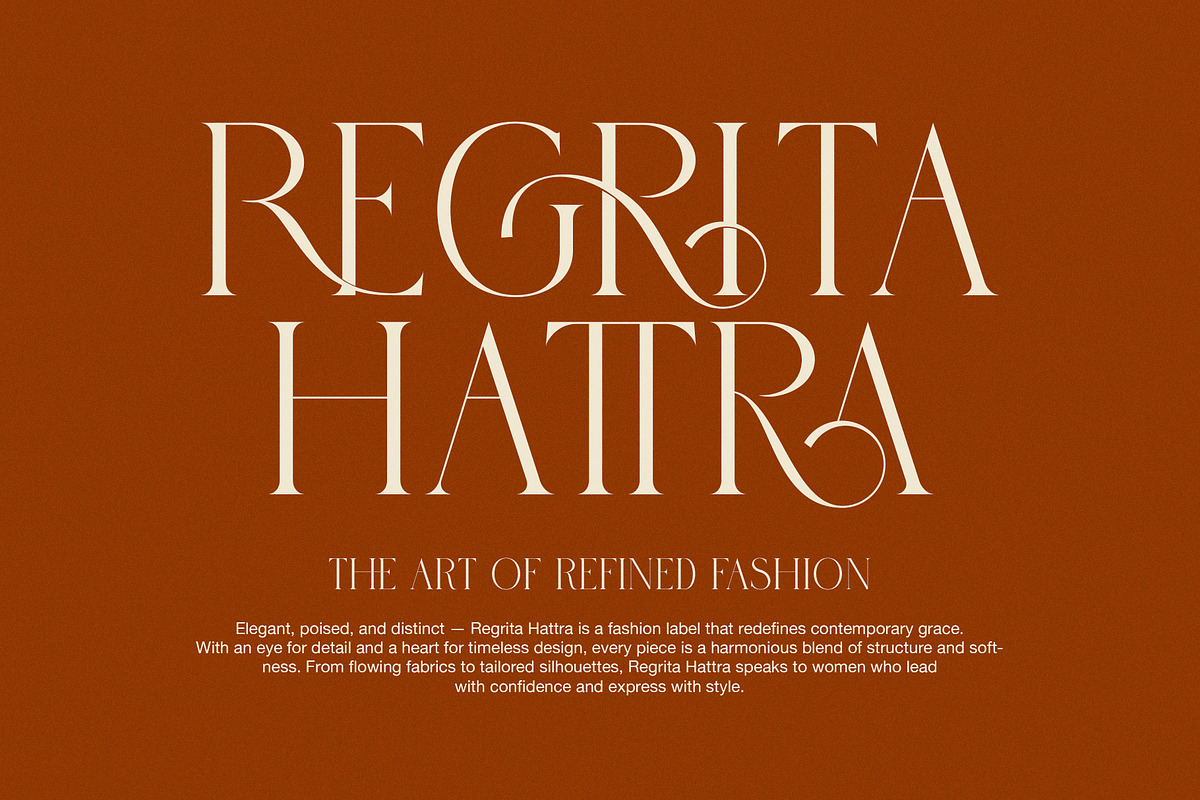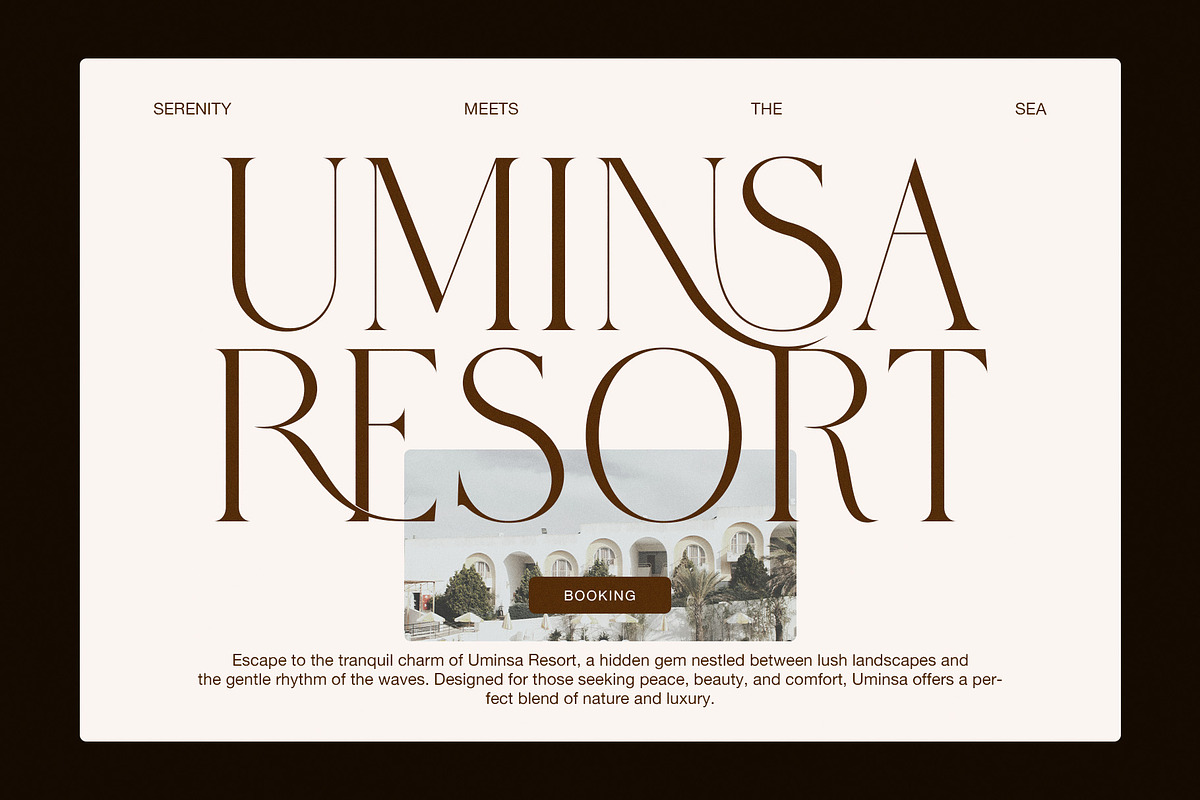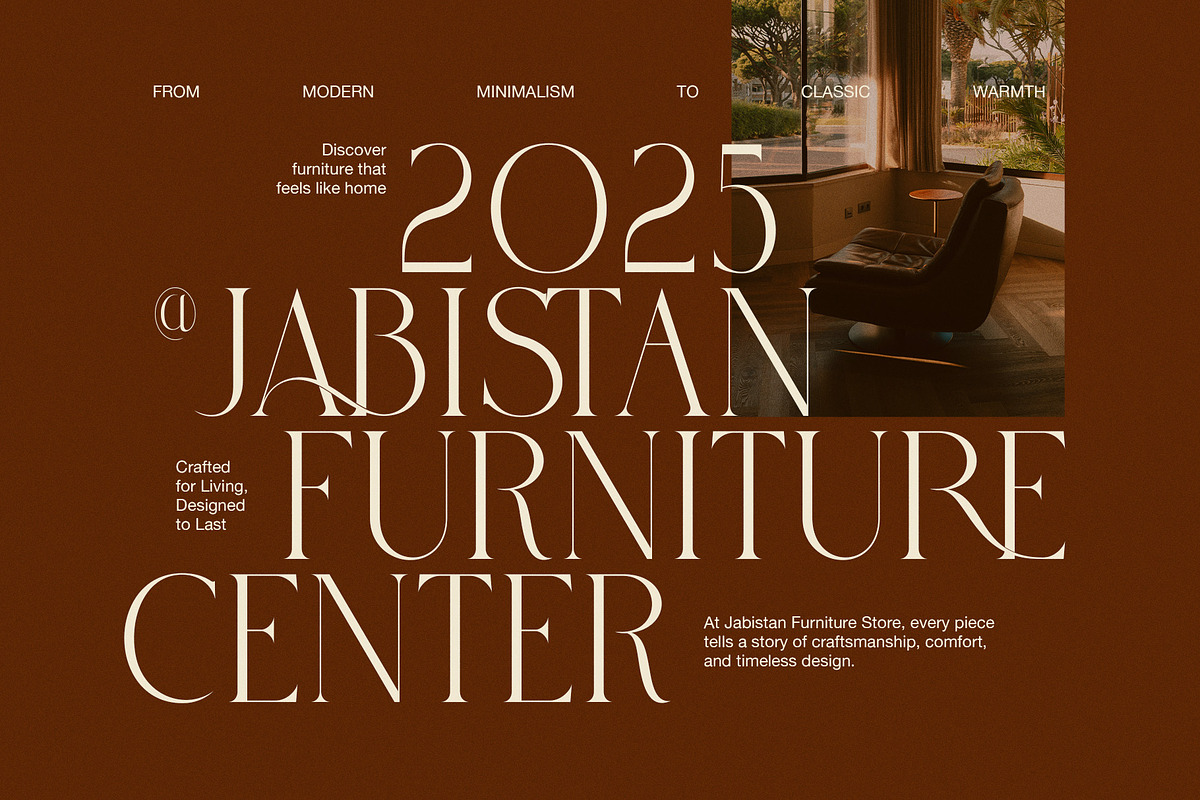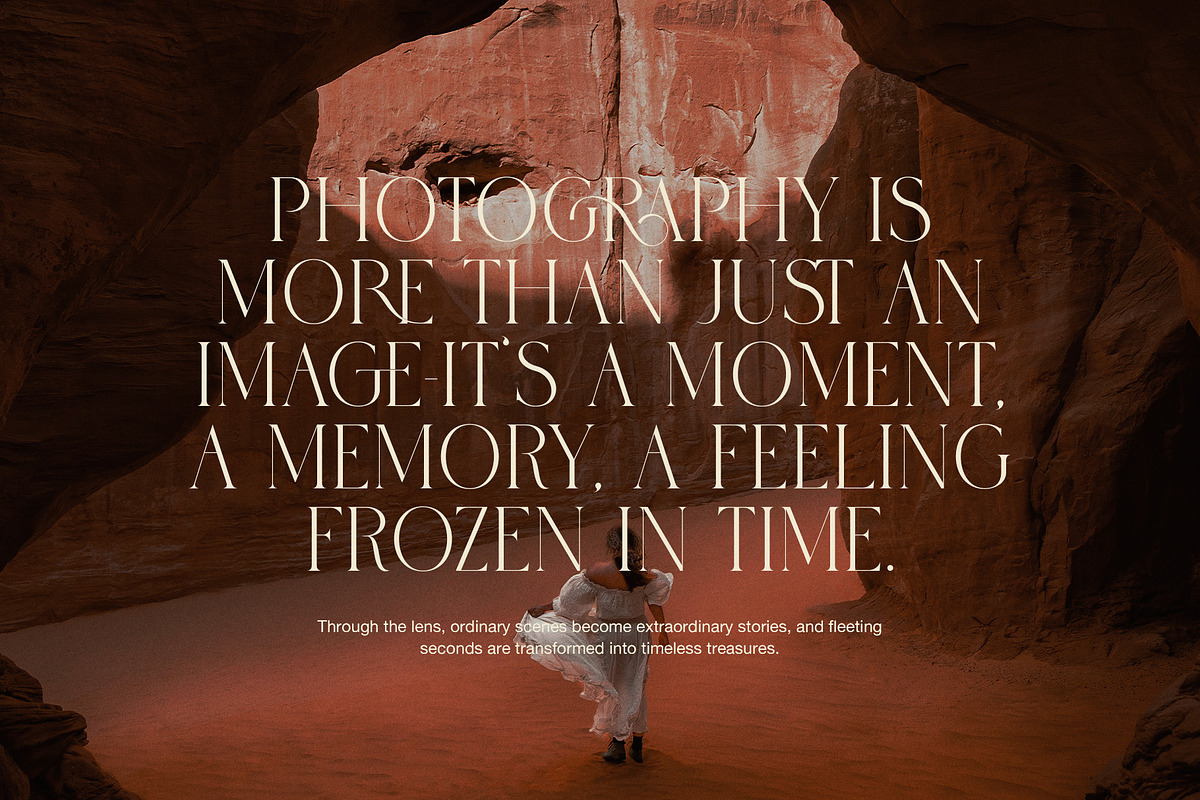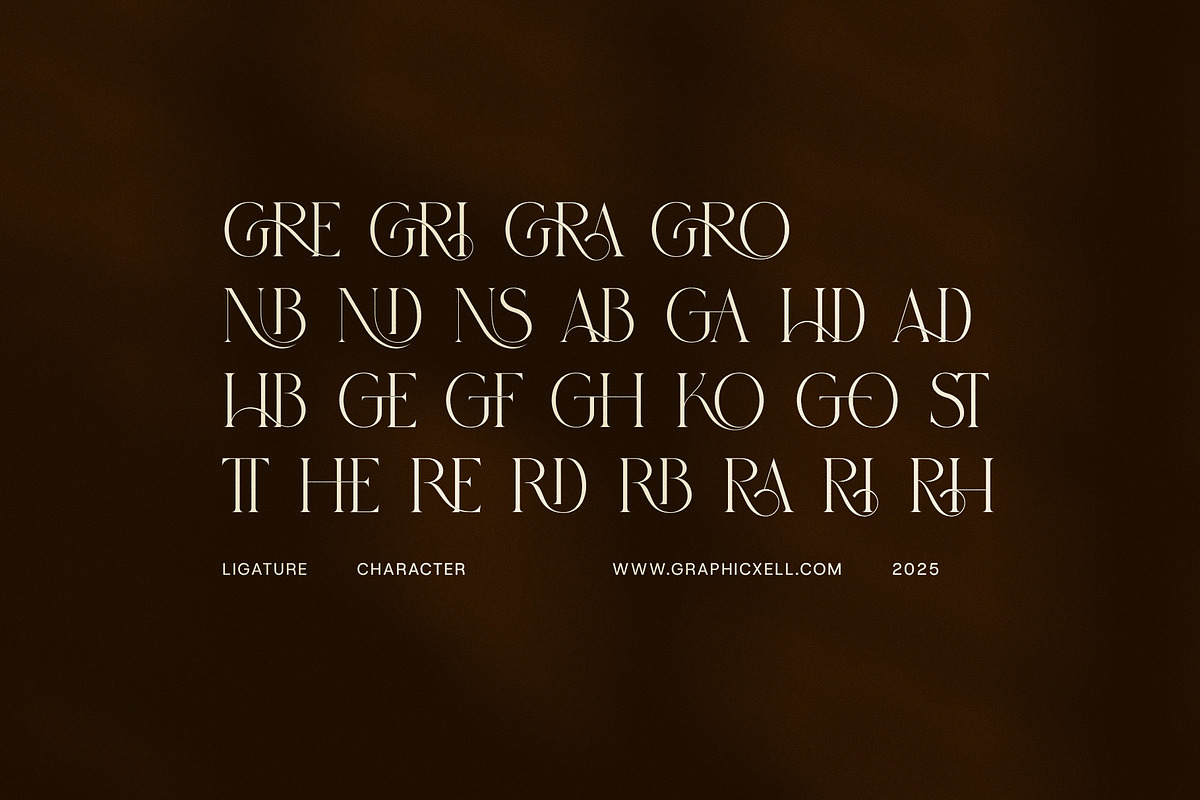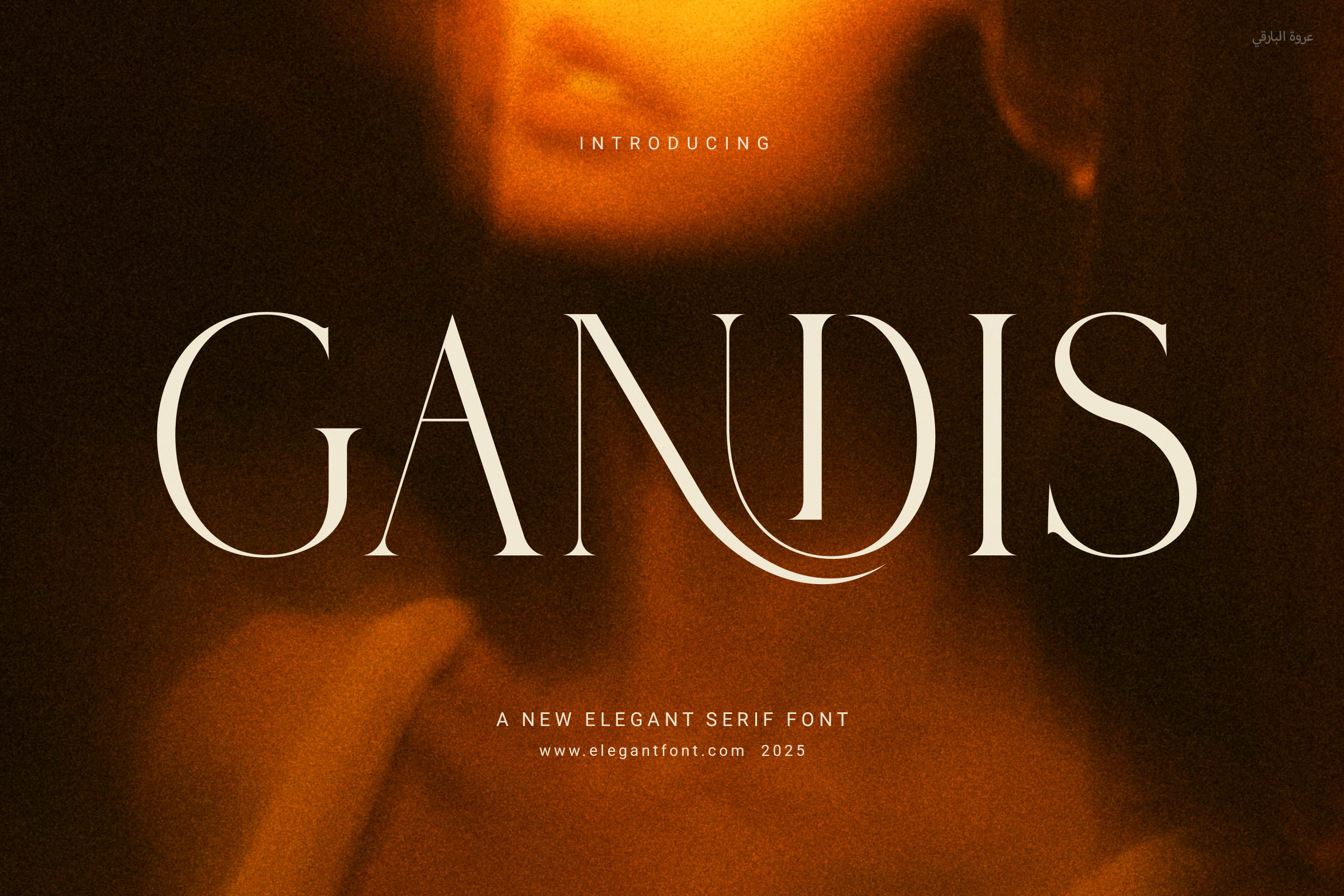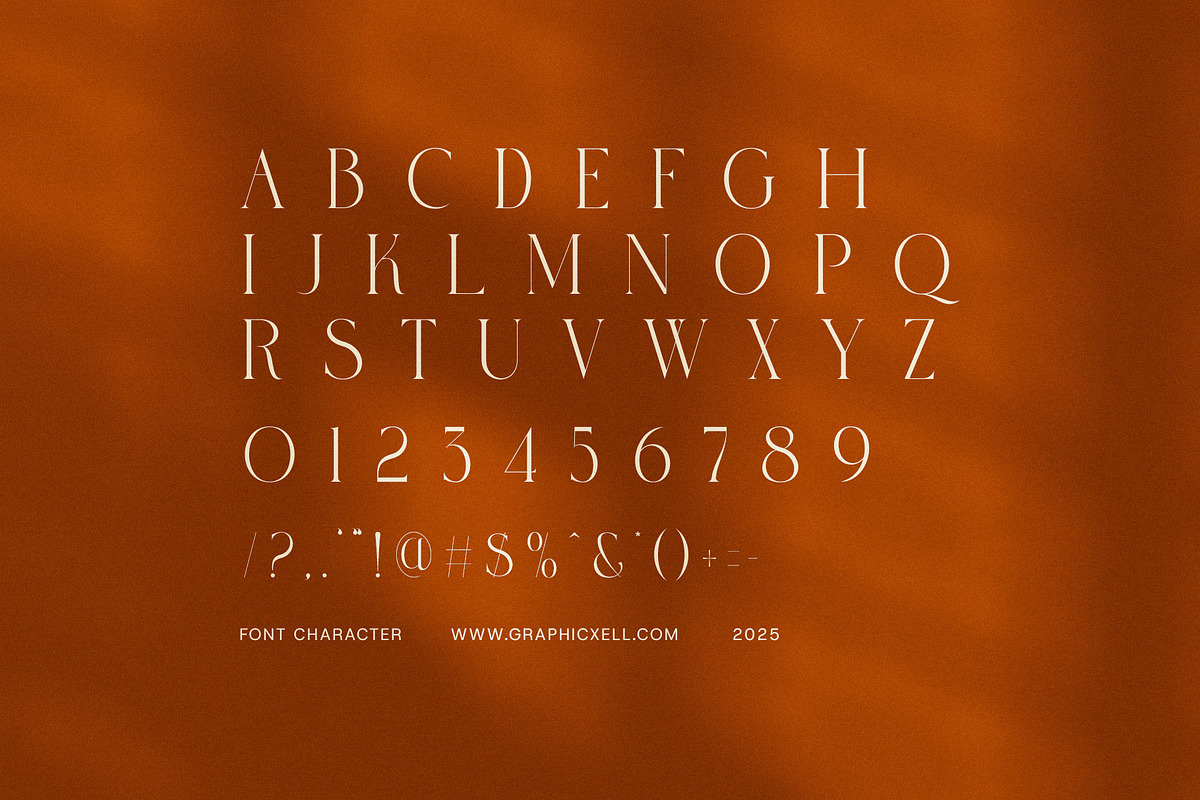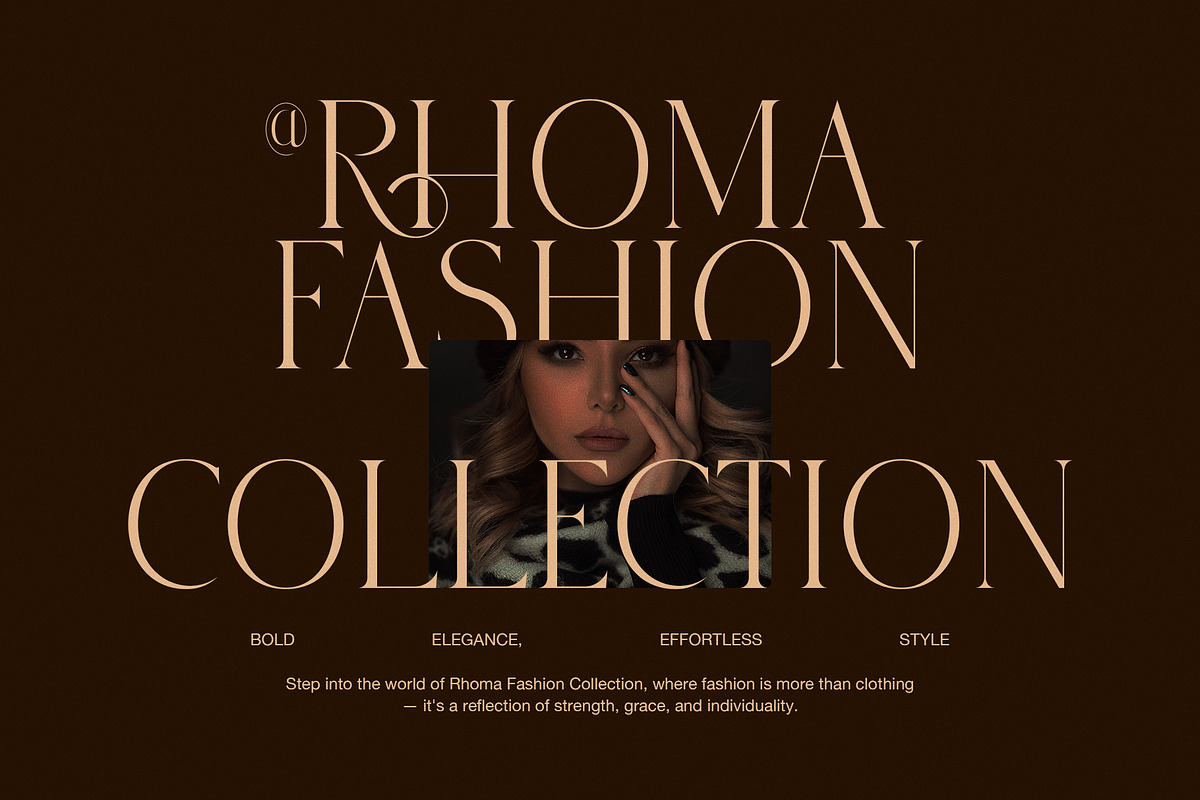
Gandis Elegant Serif Font
Gandis Elegant Serif Font is a stylish and modern serif typeface designed to bring class and clarity to any project. With clean lines, balanced spacing, and graceful curves, this font is perfect for brands that want to look both professional and elegant.
Whether you’re working on a logo, website, magazine layout, or product packaging, Gandis adds a refined touch that stands out. Each letter is shaped to keep harmony across the design, making it easy to read while still feeling high-end.
What makes Gandis special is its combination of beauty and function. It includes smart ligatures that create smooth connections between letters, giving your text a more natural and custom look. As a result, your designs feel more personal and creative—without extra effort.
Because of its flexible style, Gandis works well across many industries. From fashion brands to food packaging, and from wedding invitations to business cards—it fits beautifully. Plus, it looks amazing both in large headlines and in smaller body text.
Use Gandis for:
Modern logos and branding projects
Elegant website titles and blog headers
Editorial layouts and magazines
Wedding invitations and event stationery
Product labels, tags, and packaging
Boutique and beauty brand visuals
Social media posts and digital ads
If you want a font that feels modern but still timeless, Gandis is a great choice. It mixes classic serif structure with a fresh and stylish feel, so your designs look clean, bold, and polished.
Bring your ideas to life with Gandis – where elegance meets simplicity.